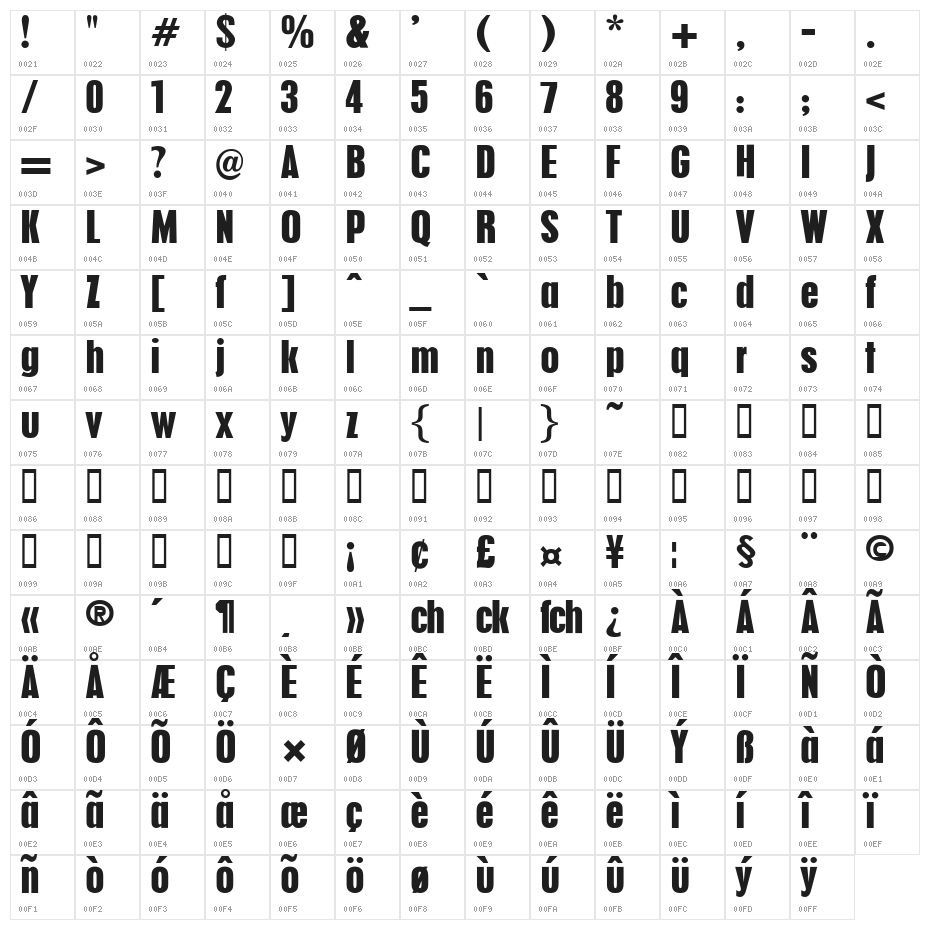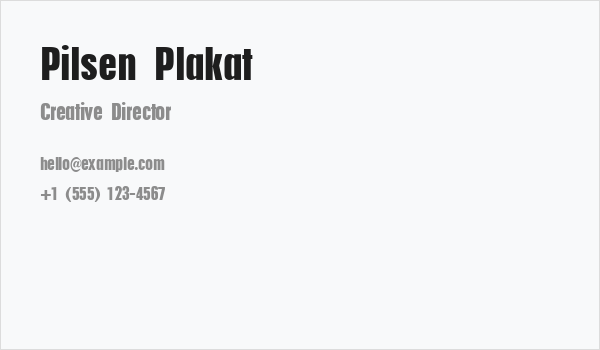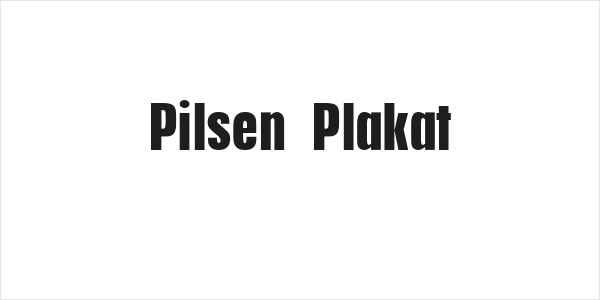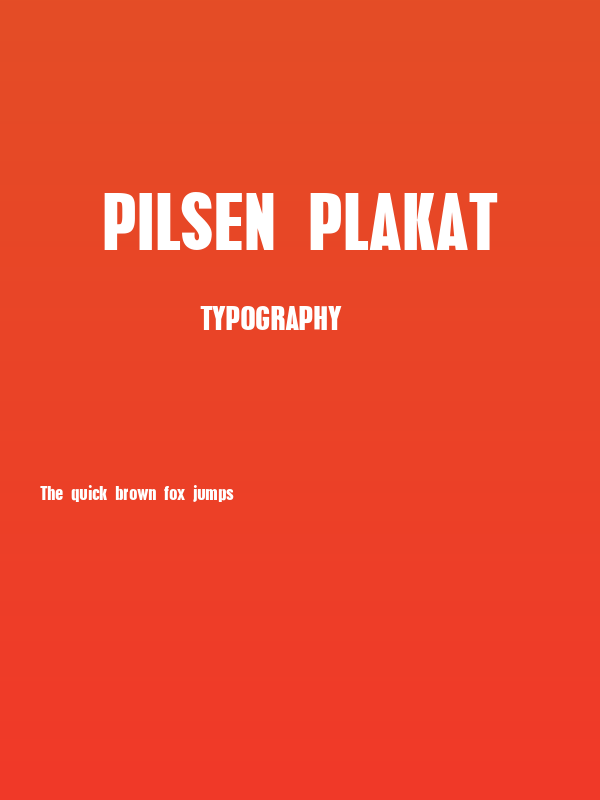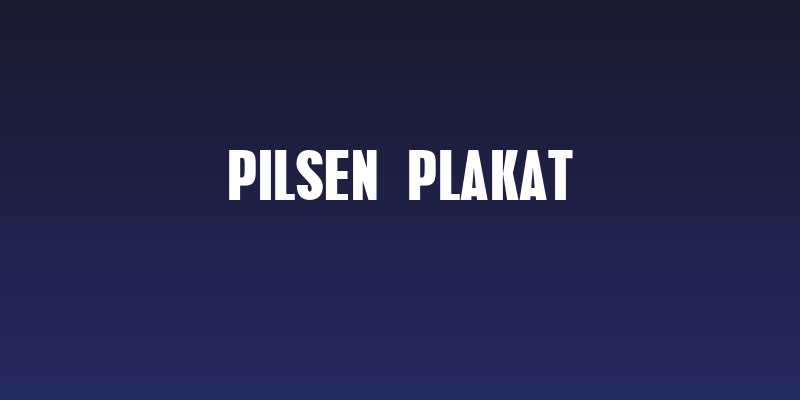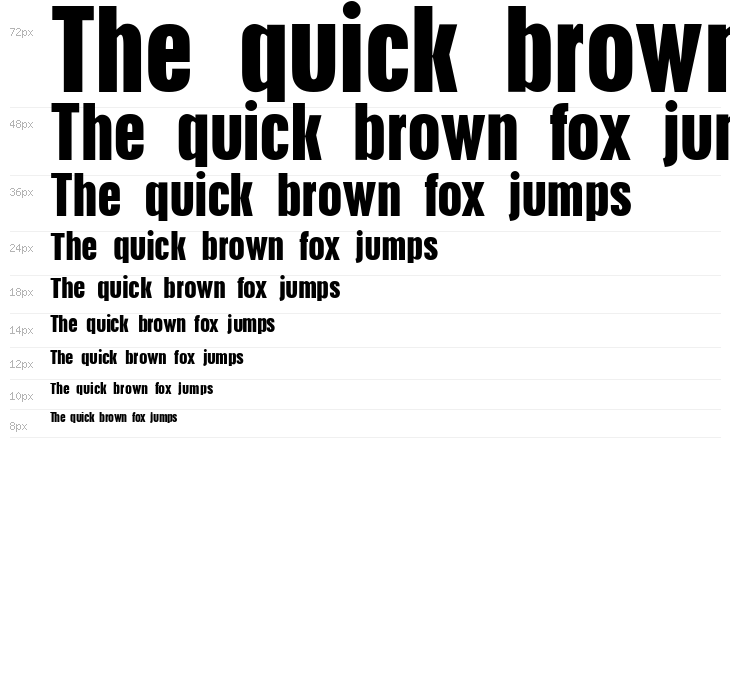
Pilsen Plakat Font
Pilsen Plakat Description
This bold and impactful font features thick, uniform strokes that convey strength and assertiveness. The uppercase and lowercase letters maintain a consistent weight, creating a cohesive and powerful appearance. The numbers and special characters are equally robust, ensuring clarity and legibility. The overall design is straightforward and modern, with a slight vintage touch that adds character. Its bold nature makes it ideal for grabbing attention, while the clean lines ensure readability across various mediums.
| Overall Style | Modern, Vintage |
| Proposed Projects | Ideal for posters, headlines, branding, and advertising where a strong visual impact is needed. |